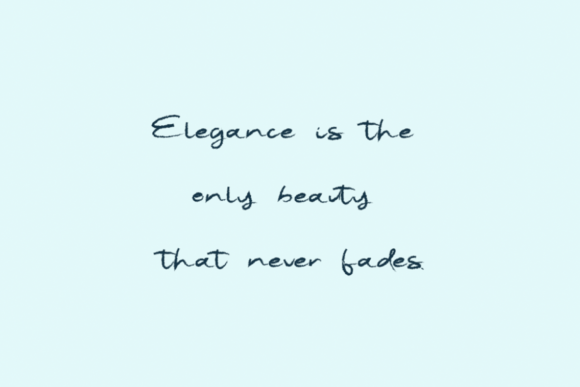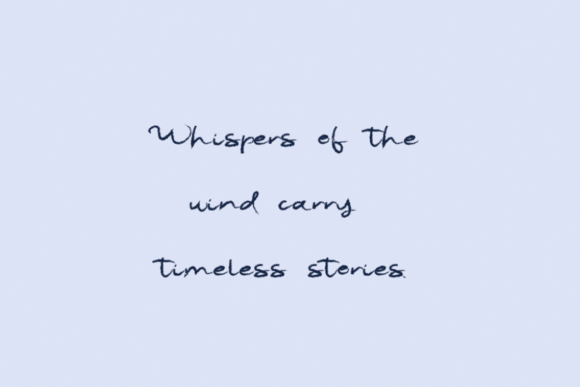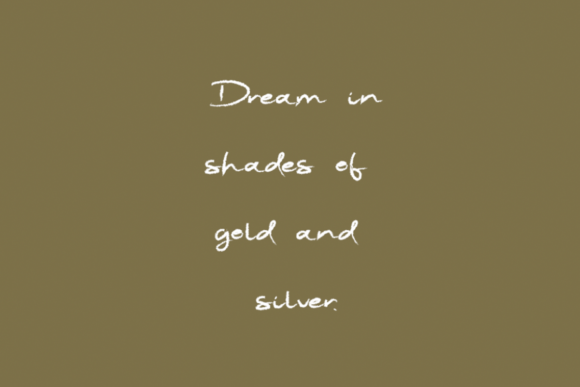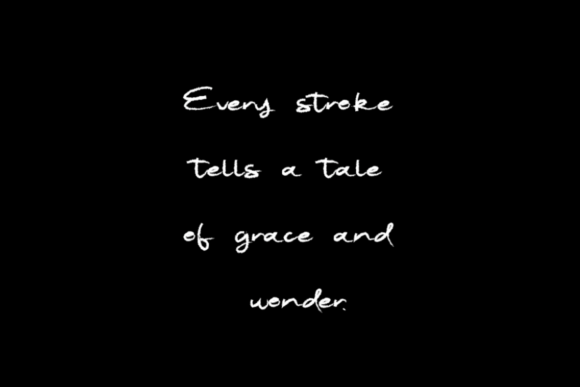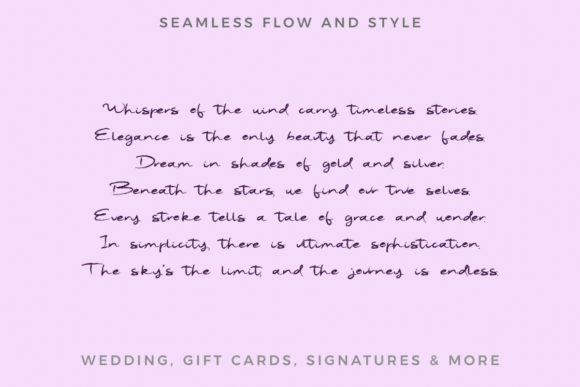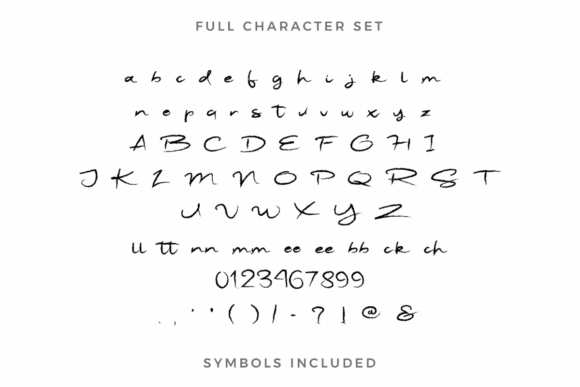
Experience the Charm of Chalkboard Font: Adding a Touch of Handcrafted Warmth to Your Designs
Are you looking for a typeface that can add a unique, handcrafted touch to your artistic projects? Look no further than the Chalkboard Font, a beautifully crafted lettering style that exudes warmth and character. In this article, we’ll explore the charm and appeal of Chalkboard, and why it’s the perfect choice for designers and crafters looking to add a personal touch to their work.
The Story Behind Chalkboard Font
Chalkboard Font is a uniquely handcrafted typeface that draws inspiration from the old-world charm of handwritten letters etched on a chalkboard. Each character is carefully crafted to resemble the imperfect, yet endearing, marks made by a chalk pen on a slate surface. The result is a lettering style that is both nostalgic and timeless, evoking memories of childhood classrooms and vintage shop signs.
What Makes Chalkboard Font So Special?
So, what sets Chalkboard Font apart from other typefaces? For starters, its handmade quality gives it a distinctive, artisanal feel that is hard to replicate with digital fonts. Each character is a piece of art, with subtle imperfections and variations that make it feel truly unique. Whether you’re using it for a title, a heading, or a block of text, Chalkboard Font is sure to add a touch of personality and whimsy to your design.
The Benefits of Using Chalkboard Font
So, why should you choose Chalkboard Font for your next project? Here are just a few benefits of using this charming typeface:
- Unique and eye-catching: Chalkboard Font is a standout typeface that is sure to grab attention. Its handmade quality and nostalgic charm make it a great choice for designers looking to create something truly unique.
- Versatile: Despite its distinctive feel, Chalkboard Font is surprisingly versatile. It can be used for a wide range of projects, from rustic wedding invitations to vintage-style posters and signage.
- Easy to read: Despite its handmade quality, Chalkboard Font is surprisingly easy to read, even at smaller sizes. This makes it a great choice for body text, as well as headings and titles.
- Customizable: As a digital font, Chalkboard can be easily customized to suit your needs. Whether you want to change the color, size, or style, this typeface is easy to work with.
How to Use Chalkboard Font in Your Designs
So, how can you incorporate Chalkboard Font into your designs? Here are a few ideas to get you started:
- Wedding invitations: Chalkboard Font is a popular choice for wedding invitations, particularly for rustic or vintage-themed weddings.
- Signage: Whether you’re creating a sign for a storefront, a restaurant, or a special event, Chalkboard Font is a great choice.
- Posters and flyers: Add a touch of personality to your posters and flyers with Chalkboard Font.
- Social media graphics: Use Chalkboard Font to create eye-catching social media graphics that stand out from the crowd.
Tips for Working with Chalkboard Font
Here are a few tips for getting the most out of Chalkboard Font:
- Use it sparingly: While Chalkboard Font is beautiful, it can be overwhelming if used too much. Use it sparingly to add emphasis and personality to your design.
- Pair it with other fonts: Chalkboard Font pairs well with a range of other fonts, from clean sans serifs to elegant scripts.
- Experiment with color: Chalkboard Font looks great in a range of colors, from classic black and white to bold brights.
Chalkboard Font is a unique and charming typeface that is sure to add a touch of personality and whimsy to your designs. With its handmade quality, nostalgic charm, and versatility, it’s the perfect choice for designers and crafters looking to create something truly special. Whether you’re creating a wedding invitation, a poster, or a social media graphic, Chalkboard Font is sure to delight. So why not give it a try and experience the charm of Chalkboard for yourself?